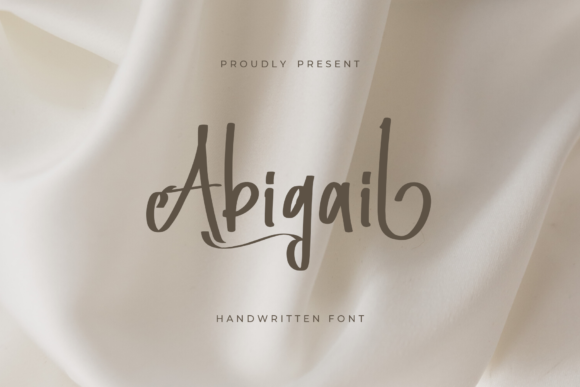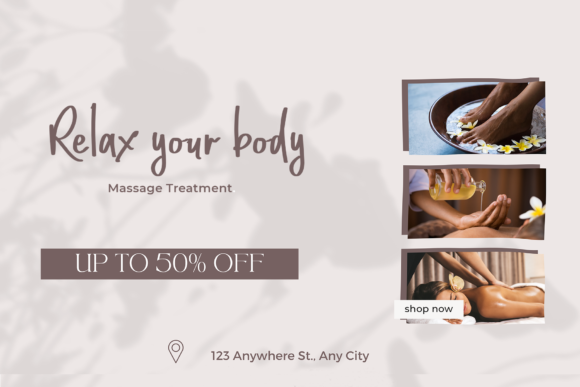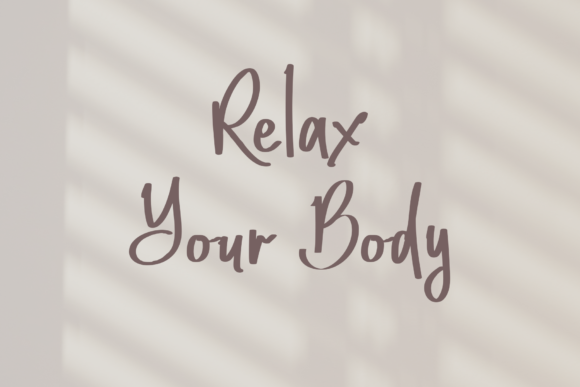
Abigail Font
About Abigail Font
Though it bursts with raw energy, Abigail always remains a heartfelt and authentic script, delivering any message with confidence and charm. It can easily be matched to an incredibly large set of projects, so add it to your creative ideas and notice how it makes them stand out!